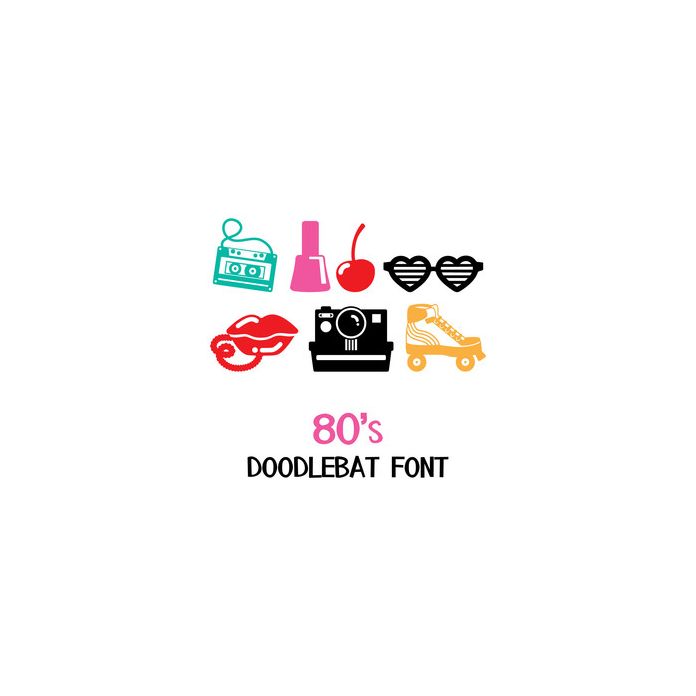
This doodlebat font has 26 different 80's themed images. Reminisce with roller skates, headsets, boom box, lip phones and more! Create fun scrap book pages, planner stickers, crafts, and cards!